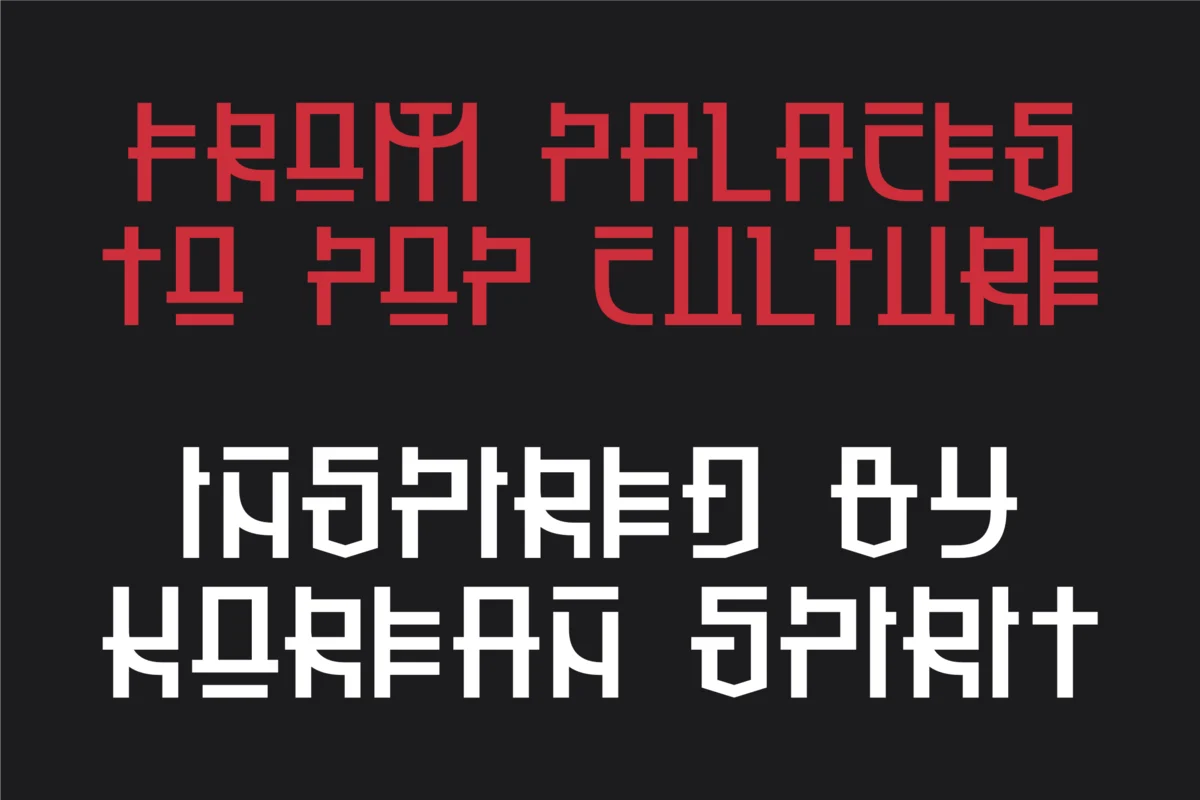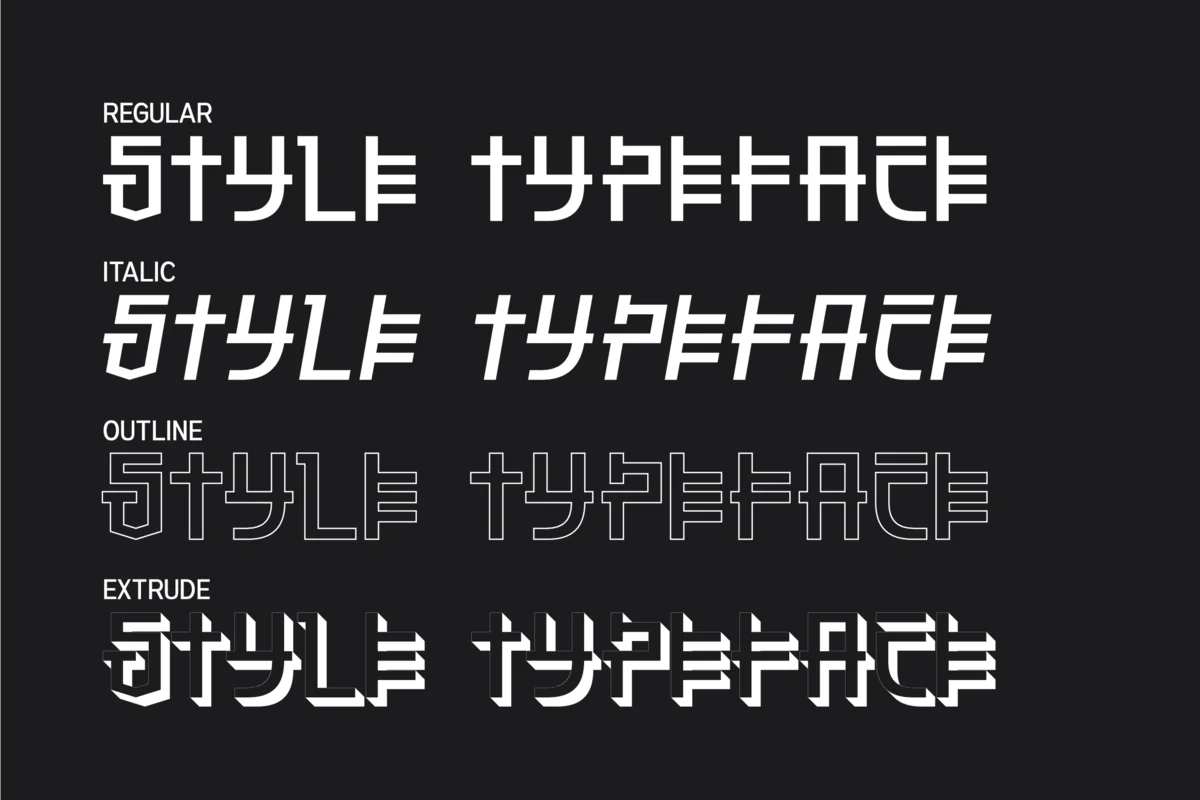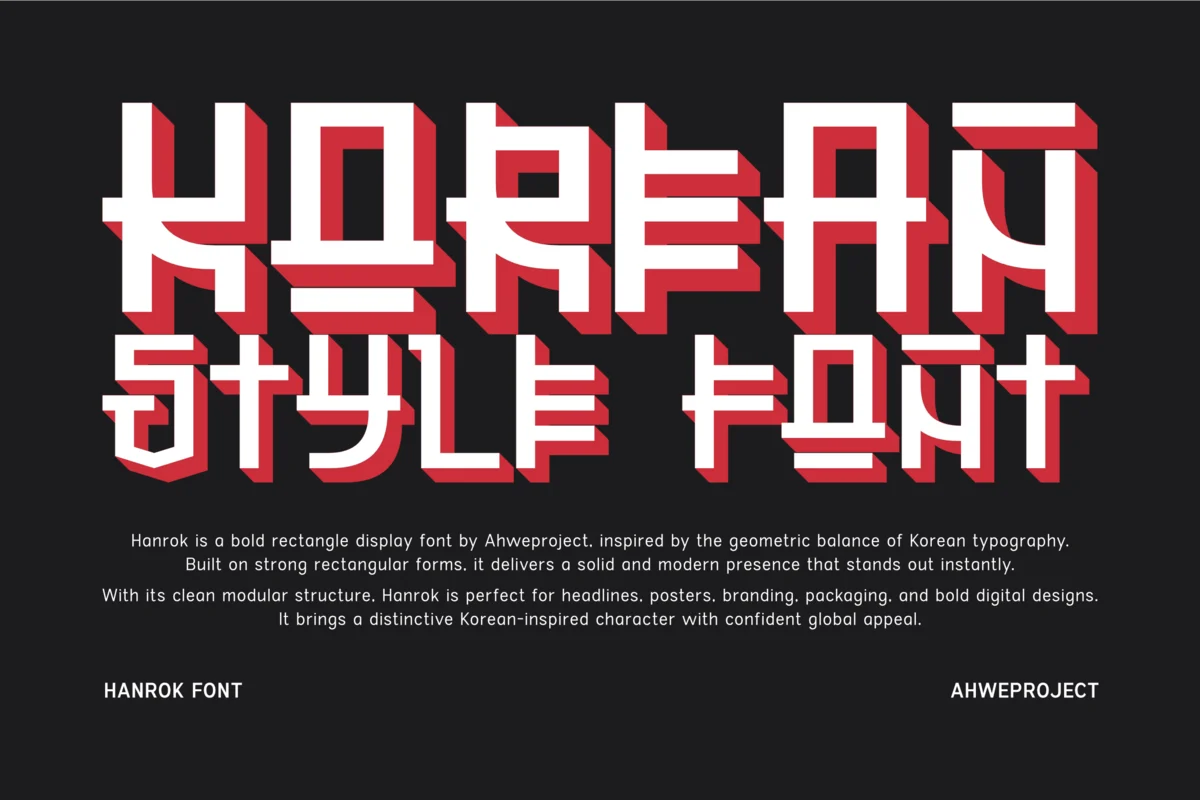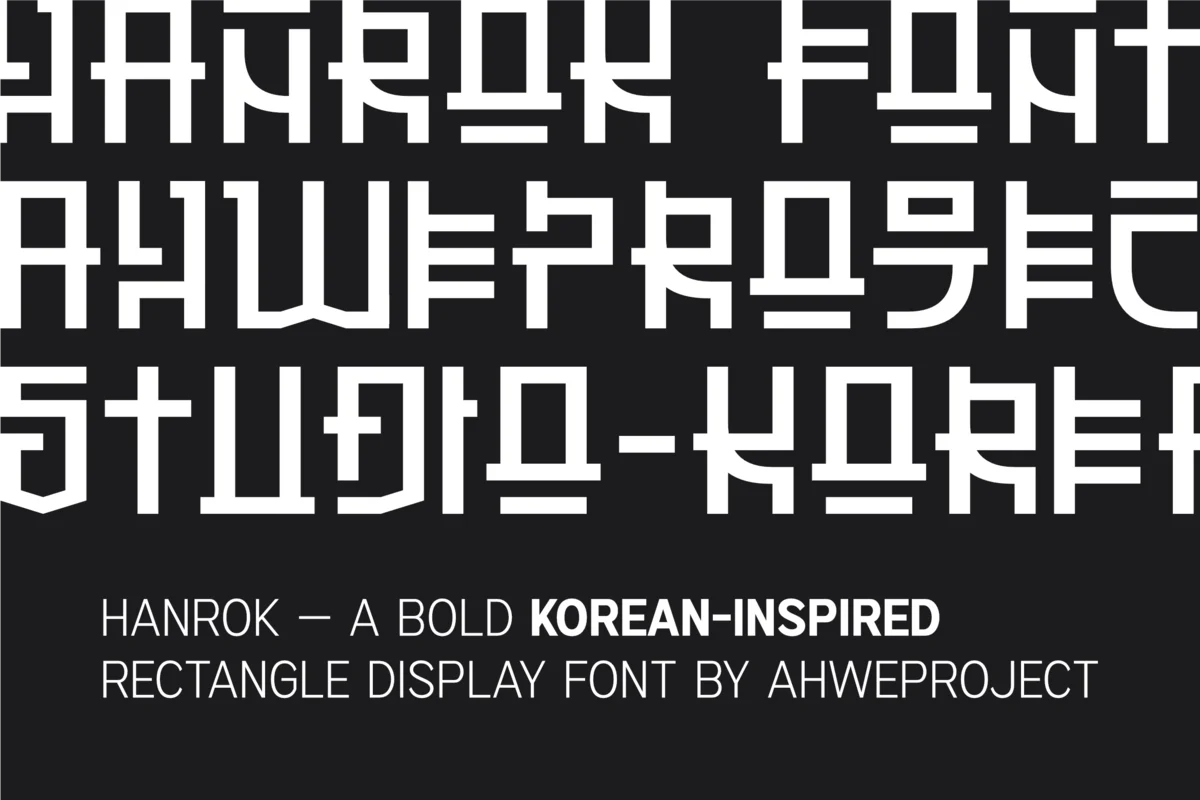
Hanrok Font
Hanrok is a bold display font inspired by the visual structure and modern aesthetic of Korean typography. Combining strong geometric lines with subtle Hangul-inspired details, this typeface delivers a unique, clean, and powerful look for a wide range of design projects.
Designed to command attention, Hanrok works perfectly for headlines, posters, branding, logos, product packaging, K-pop themed designs, Asian cultural visuals and impactful social media content. Its solid, symmetrical letterforms create a distinctive rhythm that instantly strengthens visual identity.
Hanrok comes in four versatile styles: Regular, Italic, Extrude, and Outline—giving you maximum flexibility to explore dynamic and modern typography compositions. Whether for commercial or creative use, this Korean-inspired font adds a contemporary, bold, and eye-catching character to your design.
If you’re looking for a modern Korean-style display font that stands out and builds strong branding presence, Hanrok is the perfect choice.